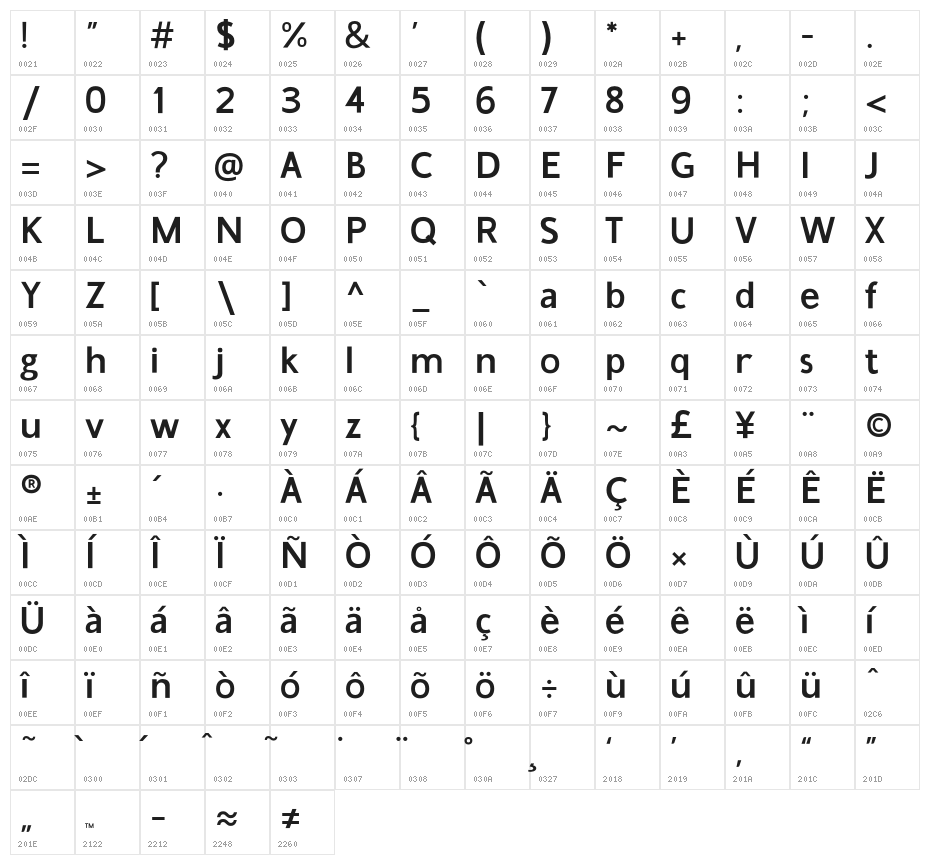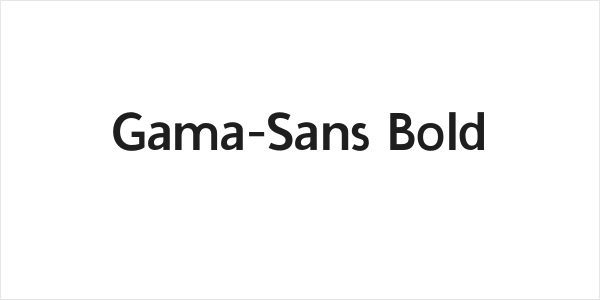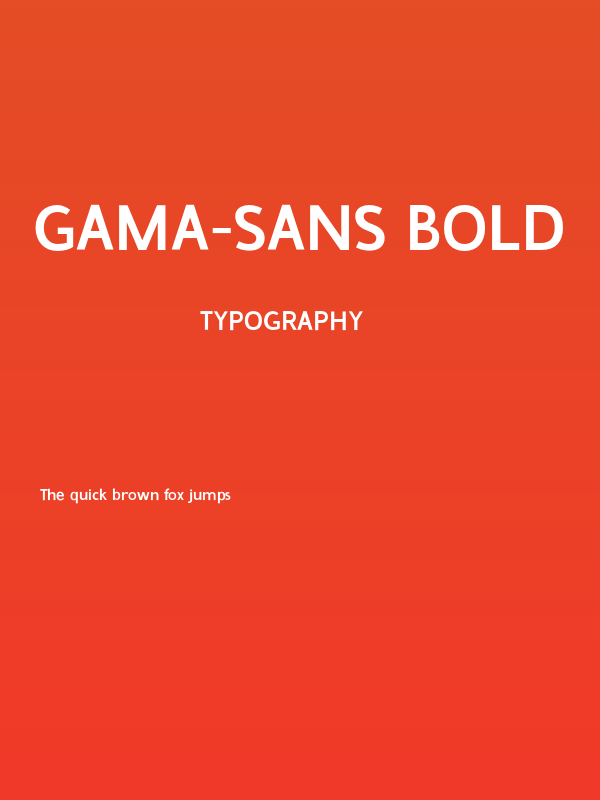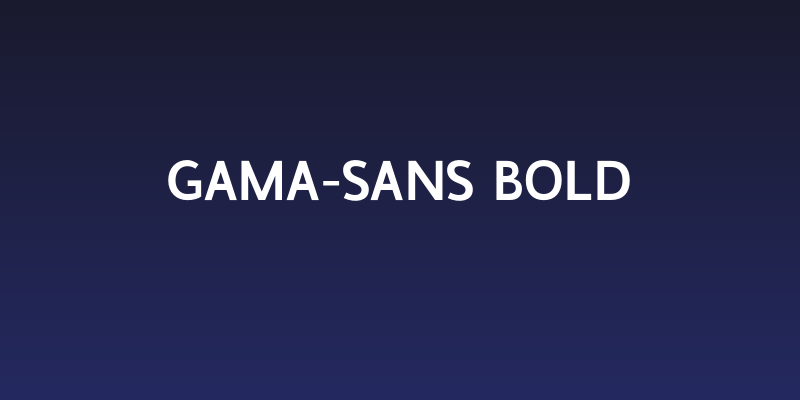
Gama-Sans Bold Font
Gama-Sans Bold Description
This font exhibits a clean and modern sans-serif style with bold weight, offering a strong and confident appearance. The characters are well-proportioned with a consistent stroke width, providing a uniform and balanced look. The uppercase and lowercase letters maintain a harmonious design, making it versatile for various applications. The numerals are clear and distinct, ensuring readability. Special characters are well-integrated, maintaining the overall aesthetic. The font's simplicity and clarity make it suitable for both digital and print media, enhancing its adaptability across different platforms.
Use CaseHeadlines, Logos, Digital interfaces
Proposed ProjectsIdeal for branding, advertising, headlines, and digital interfaces where clarity and impact are essential.